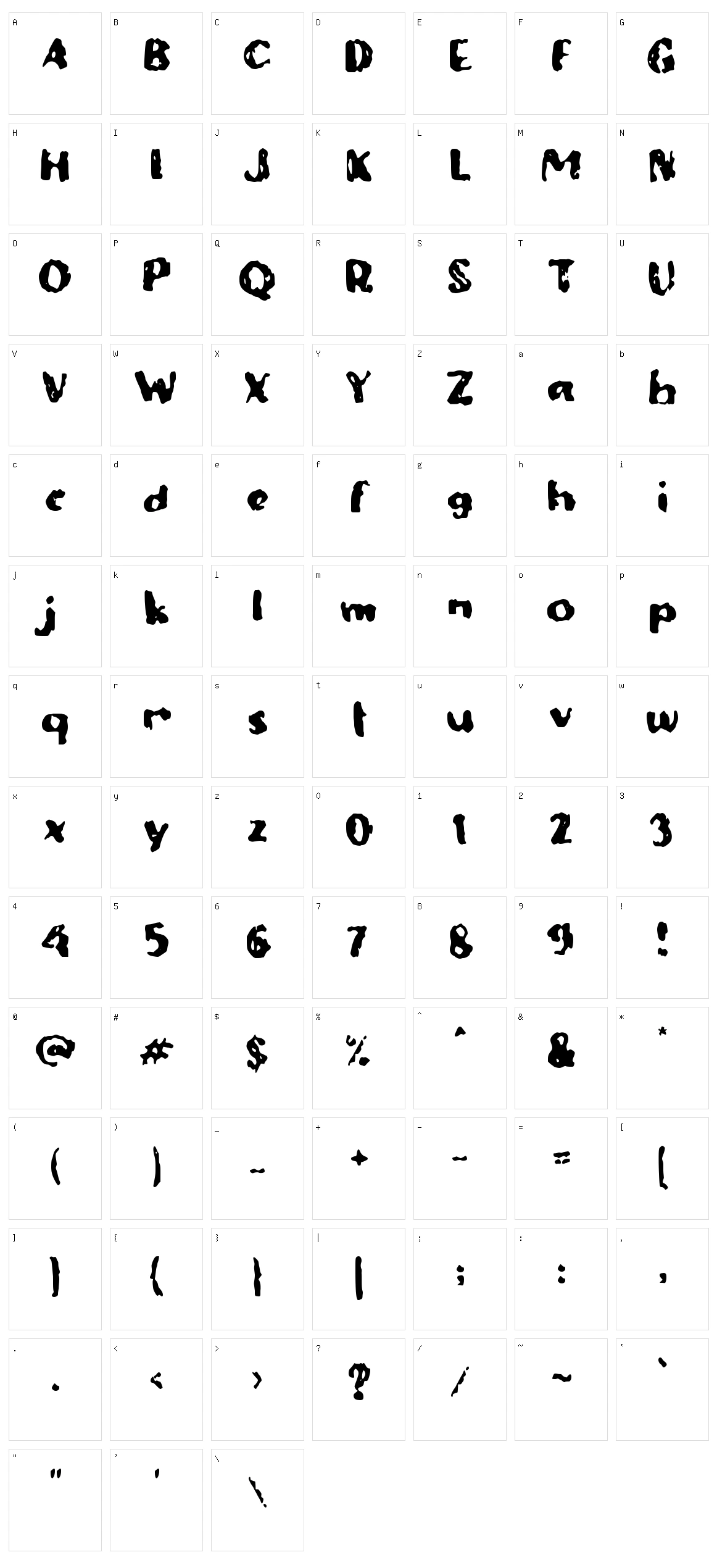
The free font c Cerangka is carefully designed by wep, showcasing a thoughtful balance of creativity and usability and falls under the Destroy font style. When you download the ZIP file, it contains only 17.74 KB of font files, making it lightweight and quick to download. Please review the license details below to understand permitted usage and distribution rights. If license information is not available, we recommend using this font for personal projects only or contacting the author directly for commercial usage permissions.